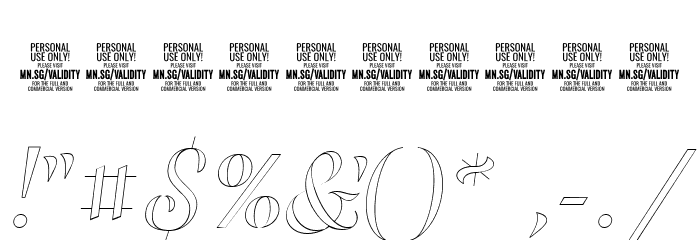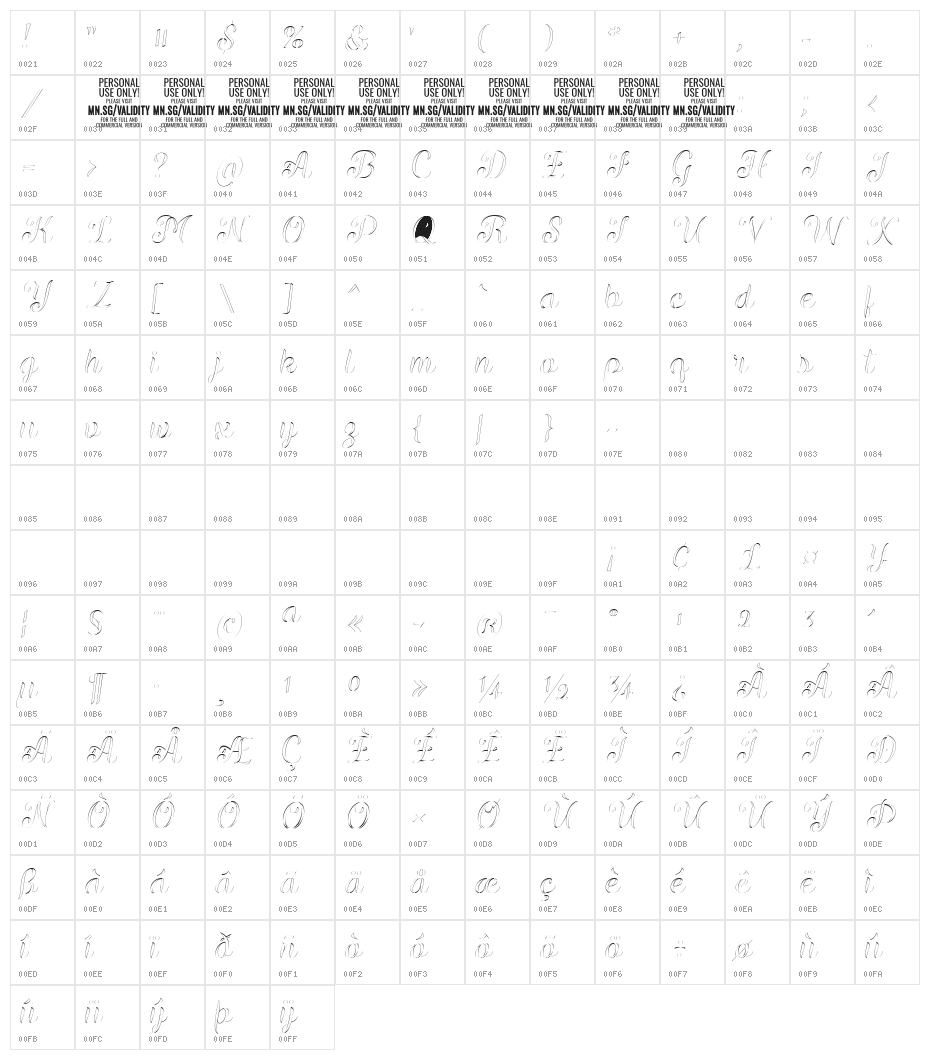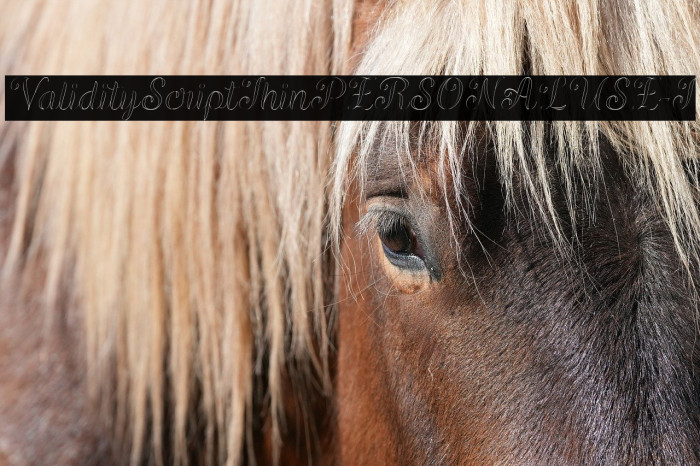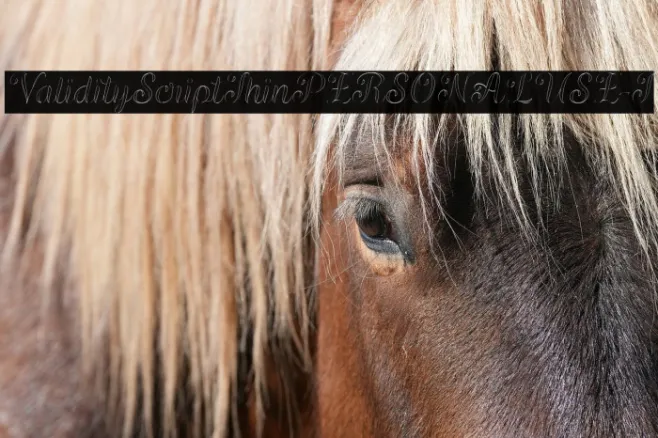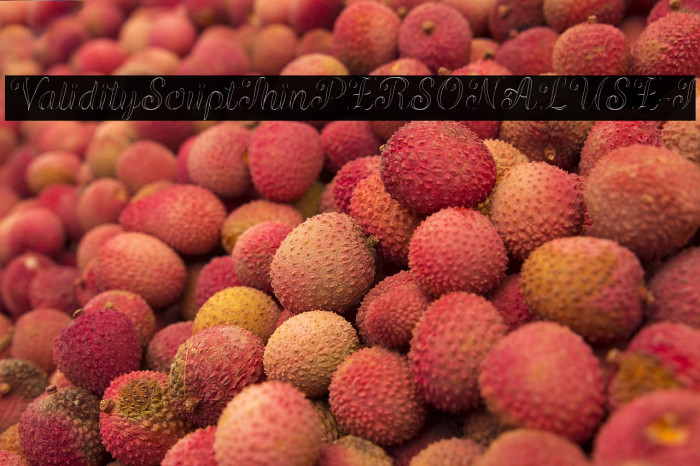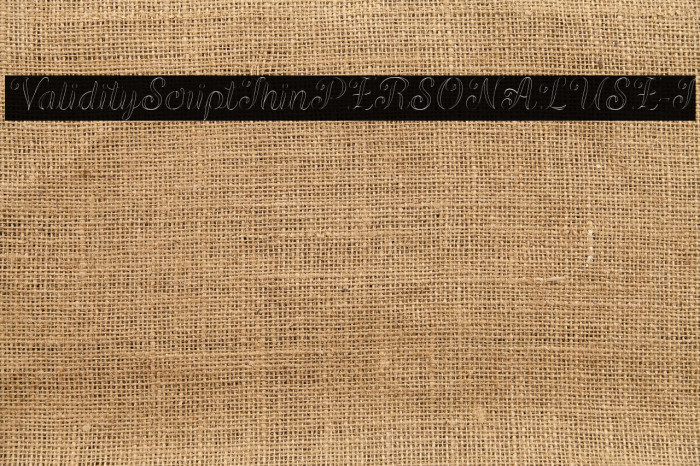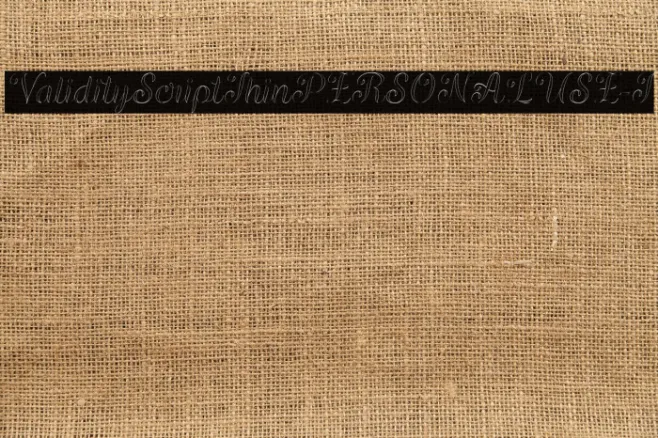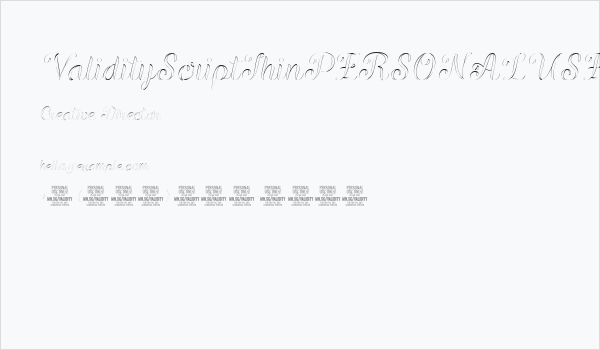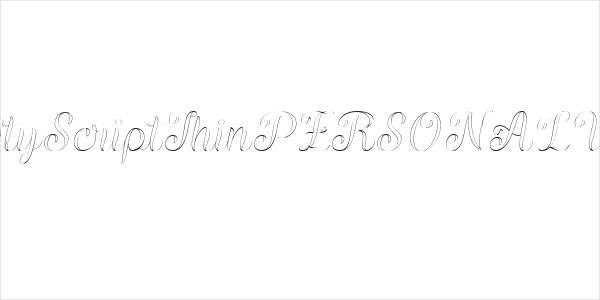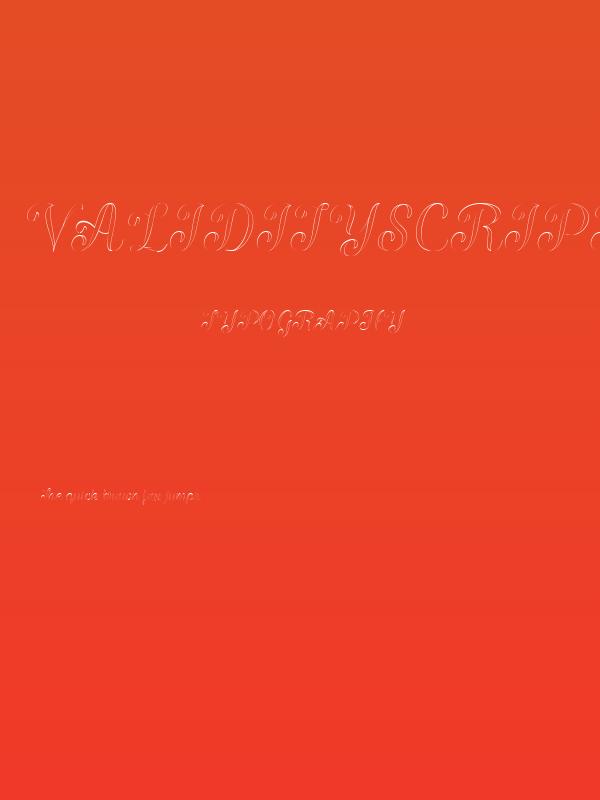
ValidityScriptThinPERSONALUSE-I Font
ValidityScriptThinPERSONALUSE-I Description
This font features an elegant and flowing script style, characterized by its thin, delicate strokes and graceful curves. The uppercase letters are ornate, with intricate loops and swashes that add a touch of sophistication. The lowercase letters maintain a consistent flow, enhancing readability while preserving the decorative nature of the font. The numerals and special characters are designed to complement the overall aesthetic, making them suitable for a variety of design applications. The font's thin lines and high contrast between thick and thin strokes give it a refined and stylish appearance, ideal for projects that require a touch of elegance.
| Use Case | Headlines, Invitations, Branding |
| Proposed Projects | Ideal for wedding invitations, elegant branding, luxury packaging, and decorative headlines. |